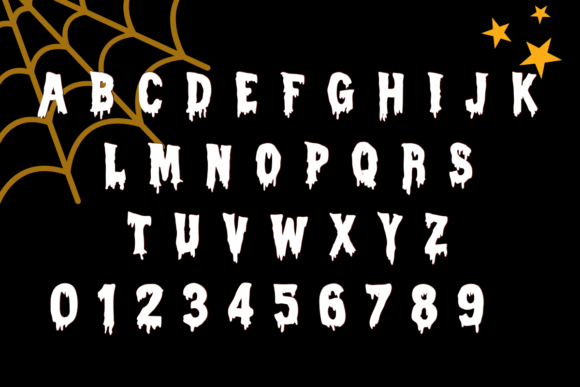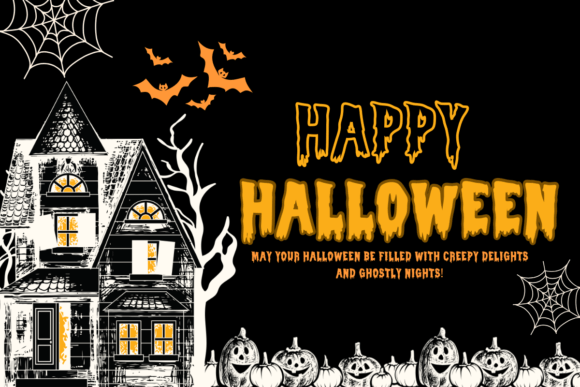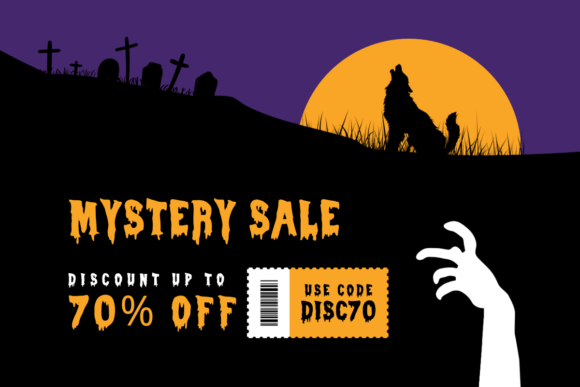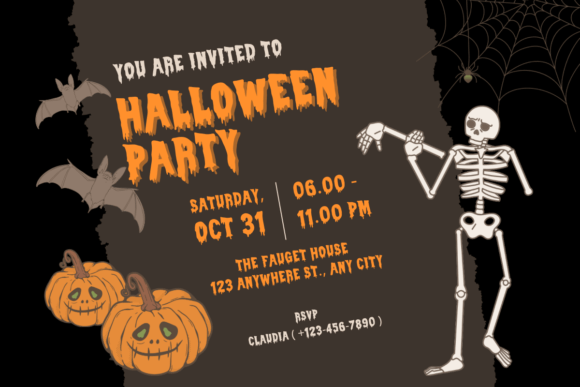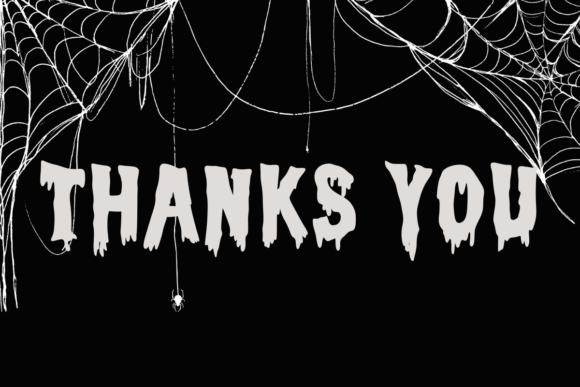
Introducing the Haunted House Font: A Spooky Decorative Font for All Your Creative Needs
Are you looking for a font that will add a touch of spookiness to your designs? Look no further than the Haunted House Font! This decorative font is perfect for creating a eerie and mysterious atmosphere in your projects. Whether you’re a designer, crafter, or simply someone who loves the spooky season, the Haunted House Font is a great addition to your font collection.
What is the Haunted House Font?
The Haunted House Font is a unique and creative font that is designed to resemble spooky, haunted house-style lettering. It’s perfect for creating a creepy and eerie atmosphere in your designs, and can be used for a variety of projects, from Halloween-themed designs to Gothic-inspired creations.
Uses for the Haunted House Font
The Haunted House Font is a versatile font that can be used for a wide range of projects. Here are some ideas to get you started:
- Note-taking and journaling: Add a spooky touch to your notes and journals with the Haunted House Font. It’s perfect for writing about ghost stories, paranormal activity, or simply jotting down your thoughts and ideas.
- Greeting cards: Create spooky and fun greeting cards for Halloween, birthdays, or other special occasions. The Haunted House Font is sure to add a creepy touch to your designs.
- Banners and signs: Use the Haunted House Font to create eye-catching banners and signs for your Halloween party or haunted house attraction.
- Mugs and water bottles: Add a spooky touch to your mugs and water bottles with the Haunted House Font. It’s a great way to show off your personality and add some creepiness to your daily routine.
- Social media posts: Use the Haunted House Font to create spooky and engaging social media posts. It’s a great way to add some personality to your posts and stand out from the crowd.
- Stationery and crafts: The Haunted House Font is perfect for creating spooky and fun stationery, such as stickers, stamps, and washi tape. You can also use it to create creepy and crawly crafts, such as spiders, bats, and ghosts.
Why Choose the Haunted House Font?
There are many reasons why you should choose the Haunted House Font for your projects. Here are a few:
- Unique and creative: The Haunted House Font is a one-of-a-kind font that will add a touch of spookiness to your designs. It’s perfect for designers and crafters who want to create unique and eye-catching projects.
- Versatile: The Haunted House Font can be used for a wide range of projects, from Halloween-themed designs to Gothic-inspired creations.
- High-quality: The Haunted House Font is a high-quality font that is designed to look great in any project. It’s perfect for print and digital designs.
Tips for Using the Haunted House Font
Here are a few tips for using the Haunted House Font in your projects:
- Experiment with different sizes: The Haunted House Font looks great in a variety of sizes, from small and subtle to large and bold. Experiment with different sizes to find the one that works best for your project.
- Pair with other fonts: The Haunted House Font pairs well with other fonts, such as sans serif fonts and script fonts. Experiment with different font combinations to find the one that works best for your project.
- Add some spooky effects: To add some extra spookiness to your designs, try adding some spooky effects, such as shadows, glows, or textures.
The Haunted House Font is a spooky and versatile font that is perfect for designers, crafters, and anyone who loves the spooky season. With its unique and creative design, it’s sure to add a touch of eeriness to your projects. Whether you’re creating Halloween-themed designs or Gothic-inspired creations, the Haunted House Font is a great addition to your font collection.